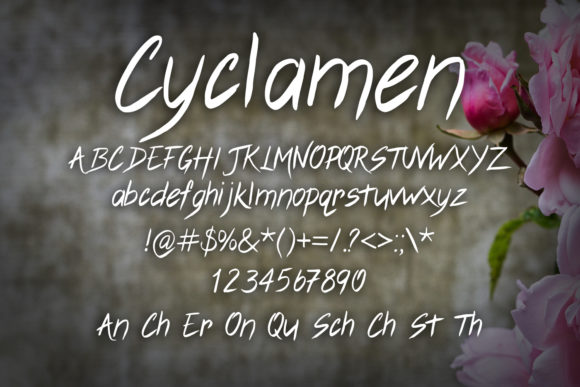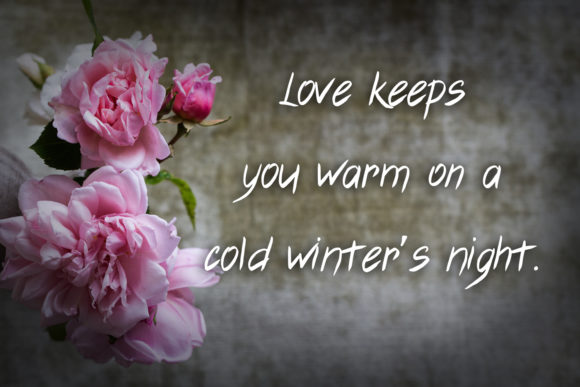
Cyclamen Font: A Timeless Handwritten Font for Stunning Designs
Are you a designer or crafter looking for a font that can add a touch of elegance and sophistication to your designs? Look no further than the Cyclamen font! This lovely and timeless handwritten font is perfect for creating eye-catching logos, branding, and quotes that will leave a lasting impression on your audience.
What Makes Cyclamen Font So Special?
Cyclamen font is a unique and beautiful handwritten font that stands out from the crowd. Every letter has a distinctive touch that will make your design come alive! The font’s elegant and flowing lines give it a classic and sophisticated feel, making it perfect for a wide range of design projects.
Cyclamen font is an excellent choice for creating logos, branding, and quotes that need to make a statement. Its unique and beautiful touch will add a level of sophistication and elegance to your design, making it perfect for:
- Logos: Create a stunning logo that will represent your brand with Cyclamen font. Its elegant lines and classic feel make it perfect for businesses that want to convey a sense of sophistication and professionalism.
- Branding: Use Cyclamen font to create a consistent brand identity that will set you apart from the competition. Its unique touch will add a level of personality to your brand, making it more relatable and memorable.
- Quotes: Add a touch of elegance and sophistication to your quotes with Cyclamen font. Its flowing lines and classic feel make it perfect for inspirational quotes, motivational quotes, and more.
Why Designers and Crafters Love Cyclamen Font
Designers and crafters love Cyclamen font for many reasons. Here are just a few:
- Unique and Beautiful Touch: Every letter in Cyclamen font has a unique and beautiful touch that will make your design stand out.
- Elegant and Sophisticated Feel: The font’s elegant and flowing lines give it a classic and sophisticated feel that is perfect for a wide range of design projects.
- Easy to Read: Despite its elegant feel, Cyclamen font is easy to read, making it perfect for designs that need to convey a message.
- Versatile: Cyclamen font can be used for a wide range of design projects, from logos and branding to quotes and more.
Tips for Using Cyclamen Font
Here are a few tips for using Cyclamen font in your designs:
- Use it Sparingly: Cyclamen font is a statement font, so use it sparingly to make a maximum impact.
- Pair it with Other Fonts: Pair Cyclamen font with other fonts to create a unique and interesting contrast.
- Experiment with Colors: Experiment with different colors to find the perfect combination that will make your design pop.
Cyclamen font is a timeless handwritten font that is perfect for designers and crafters who want to add a touch of elegance and sophistication to their designs. Its unique and beautiful touch, elegant and sophisticated feel, and versatility make it an excellent choice for a wide range of design projects. Whether you’re creating logos, branding, quotes, or more, Cyclamen font is sure to make your design come alive!